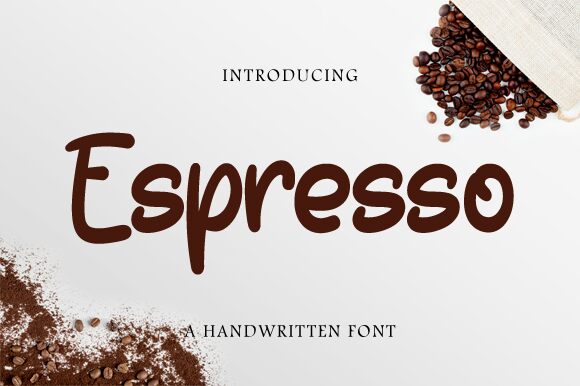
Espresso, crafted by Graphix Line Studio, is a font that exudes the warmth and spontaneity of a handwritten note. Its bold strokes and playful curves convey a sense of casual elegance, making it perfect for designs that require a personal touch. The fluidity of its characters adds a lively flair to the text, reminiscent of a quick scribble on a coffee-stained napkin during an inspired cafe rendezvous.
The font's charm lies in its ability to appear both carefree and assertive, giving it versatility for various applications. Espresso is particularly well-suited for branding projects, packaging design, and creative advertising where an approachable yet confident tone is desired. It can also add character to editorial content or personalized merchandise that benefits from its distinctive style blending informality with impact.